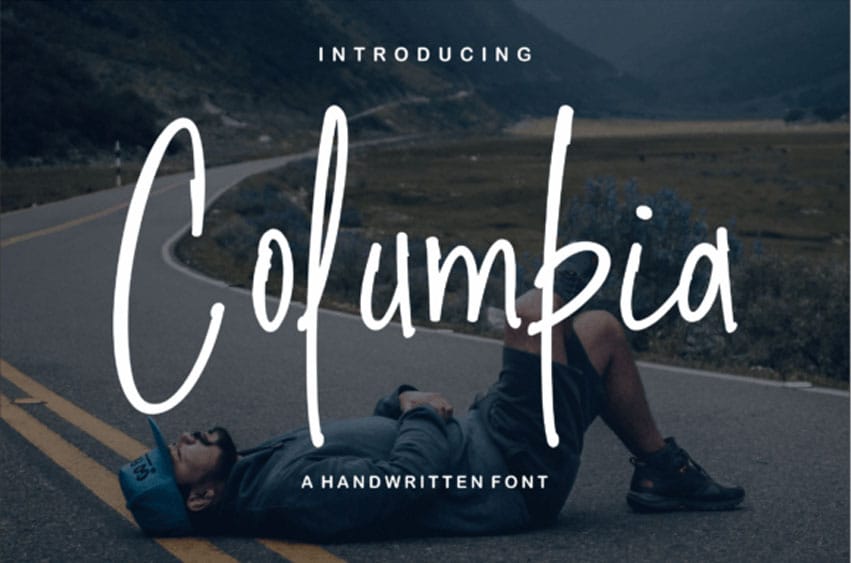
Columbia Font will make you want to jump on a plane and travel!
Brush fonts such as Columbia are great for a wide variety of design and print options such as social media, blogging, logos, cut files, and more.